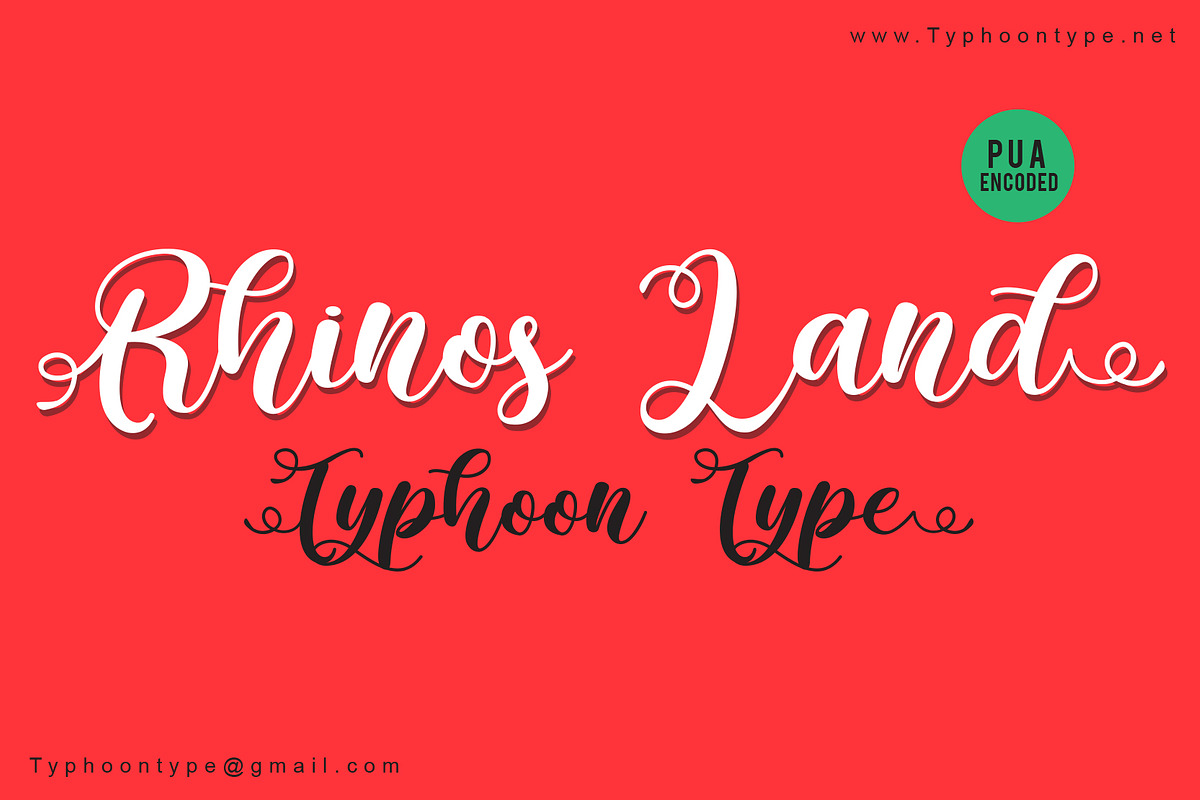
Rhinos Land font
Rhinos Land This font perfect for logos, name tag, advertising, product packaging, clothing, social media & greeting cards.
Why Rhinos Land font is worth a look
Rhinos Land font by TyphoonStudio fits naturally into Branding, posters, packaging, typography.